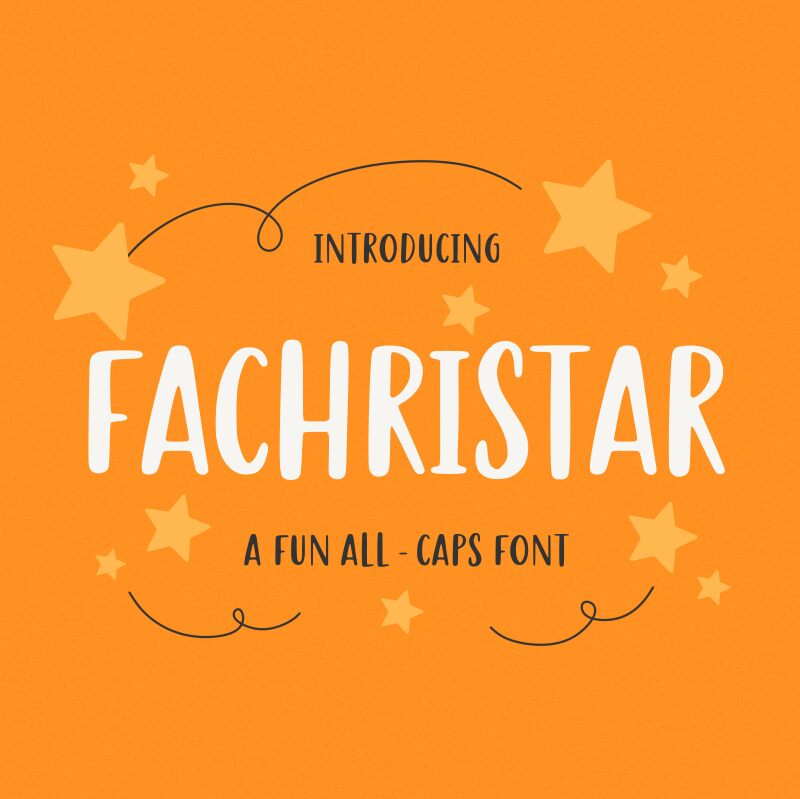
Fachristar, the brainchild of Allouse Studio, is a captivating display font that will inject a dose of excitement into your designs. With its condensed width and all-caps style, this font demands attention and exudes a playful charm.
Perfect for party invitations, poster designs, or social media graphics, Fachristar will infuse your projects with a sense of fun and vibrancy.
Let this unique typeface add an extra spark to your creative endeavors and make your message stand out from the crowd.